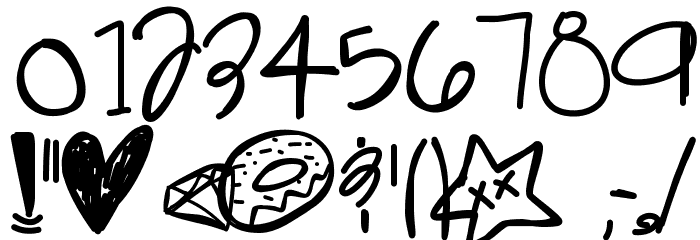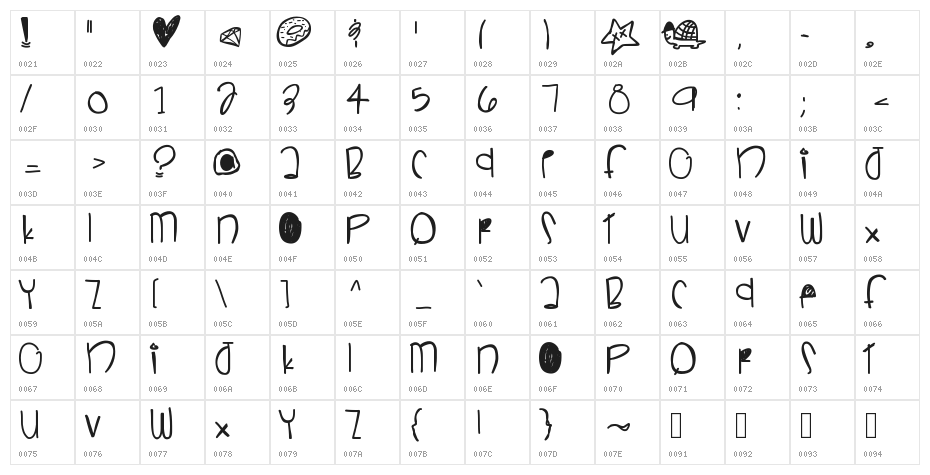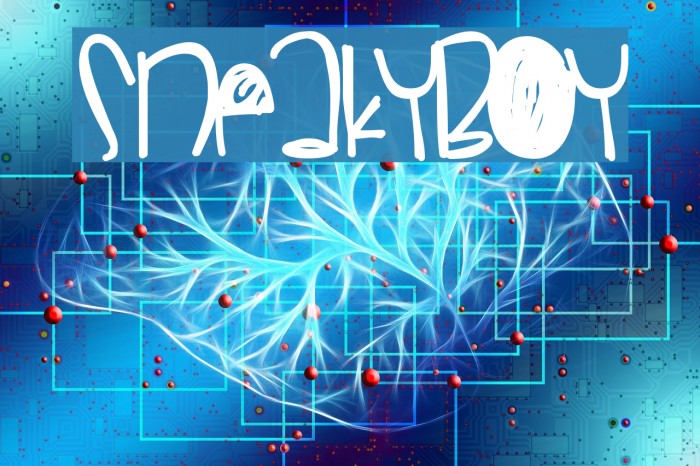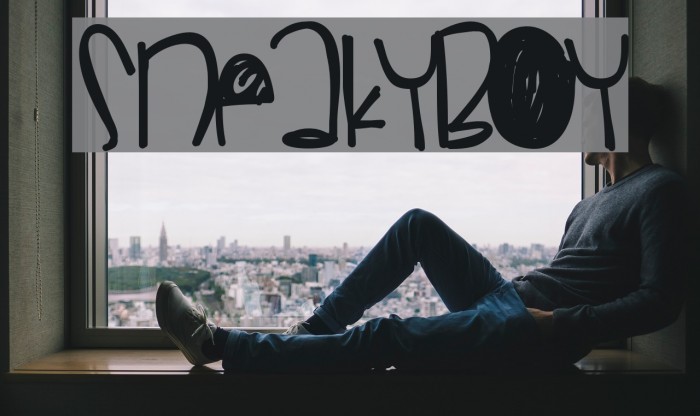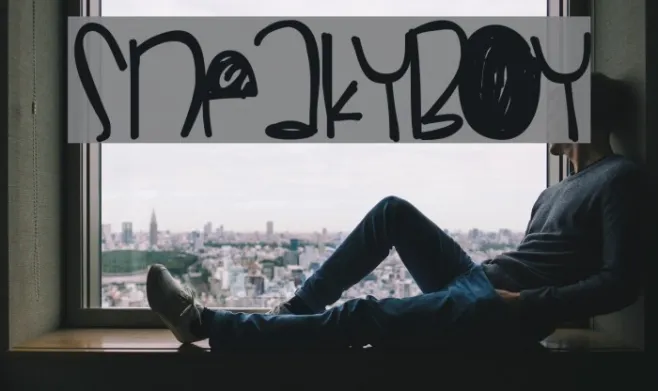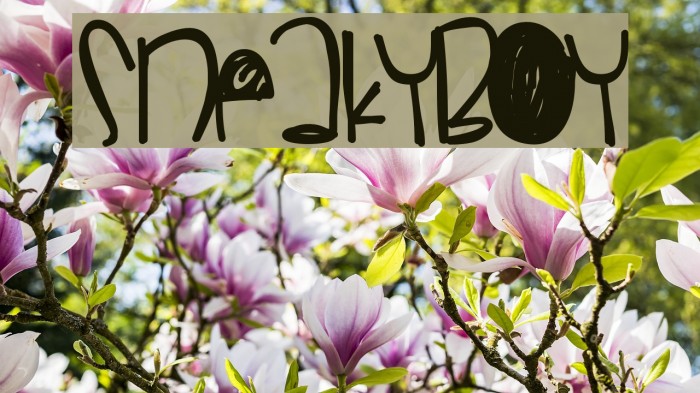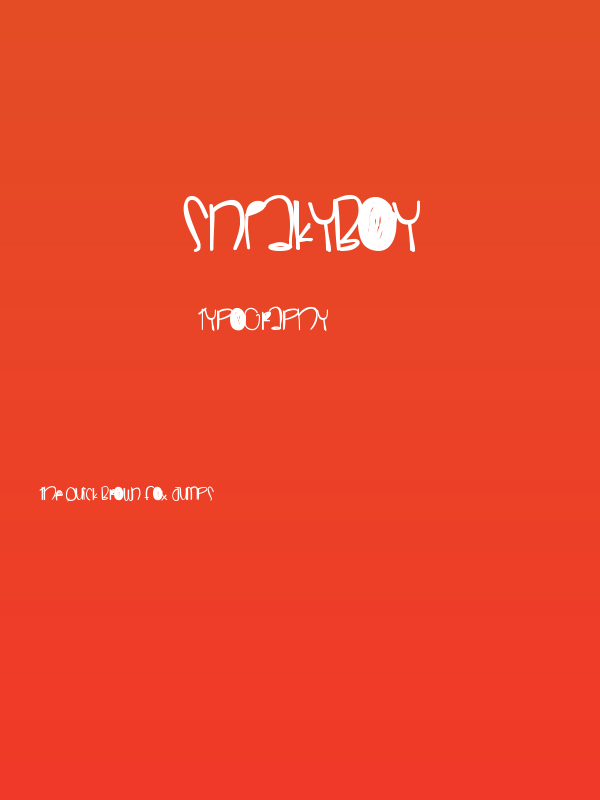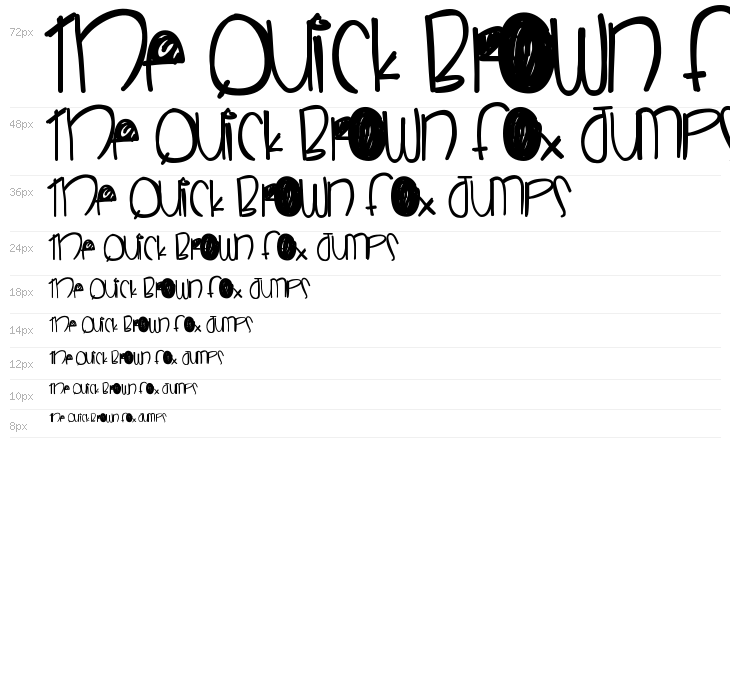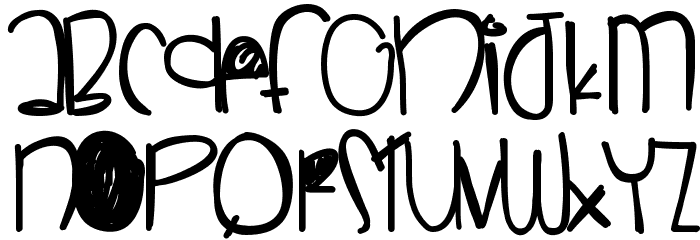
SneakyBoy Font
SneakyBoy Description
This playful and whimsical font features an eclectic mix of bold, rounded characters with a hand-drawn aesthetic. The uppercase and lowercase letters share a consistent style, characterized by exaggerated curves and a casual, informal appearance. The numbers and special characters maintain this playful theme, adding a touch of creativity and uniqueness. The font's design is reminiscent of doodles or graffiti, making it ideal for projects that require a fun and lively touch. Its bold strokes and irregular shapes give it a distinctive personality, perfect for capturing attention.
| Proposed Projects | Ideal for children's books, playful branding, creative posters, and informal invitations. |